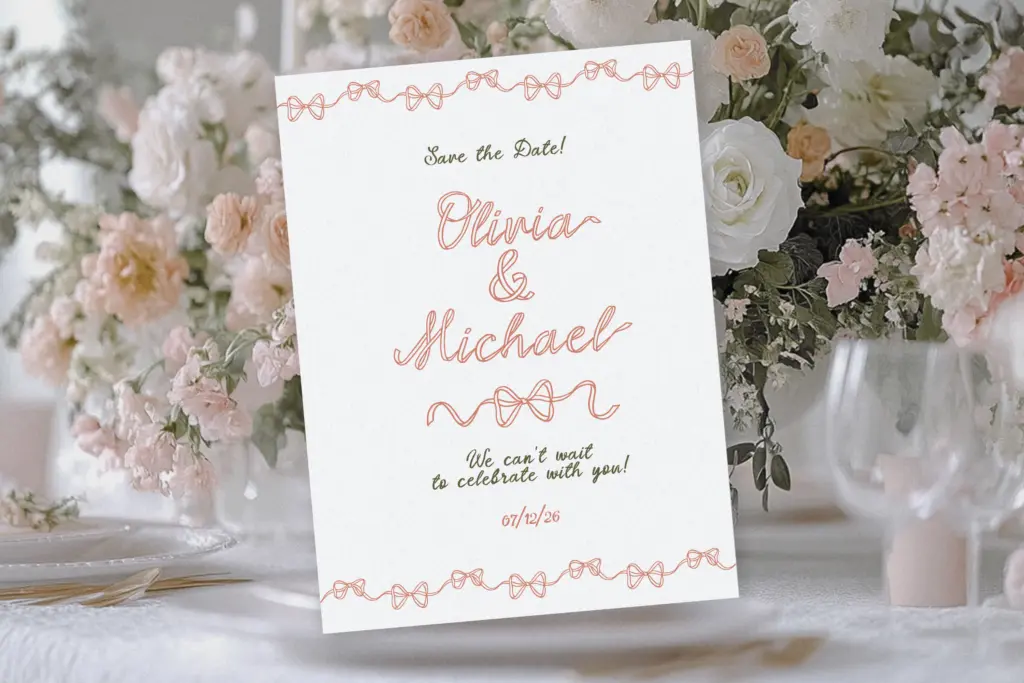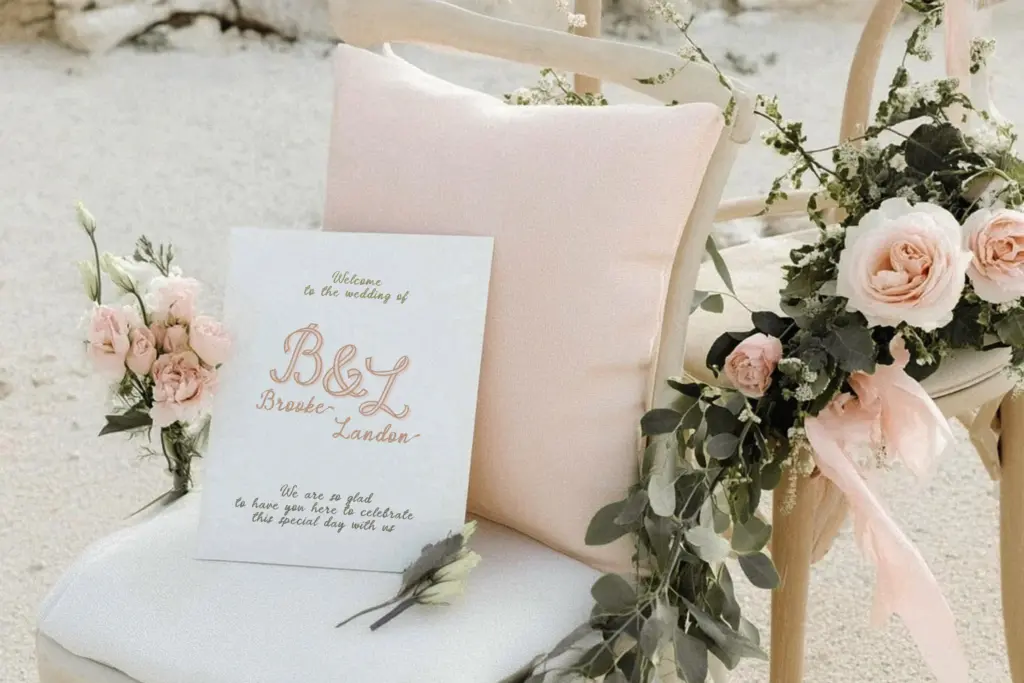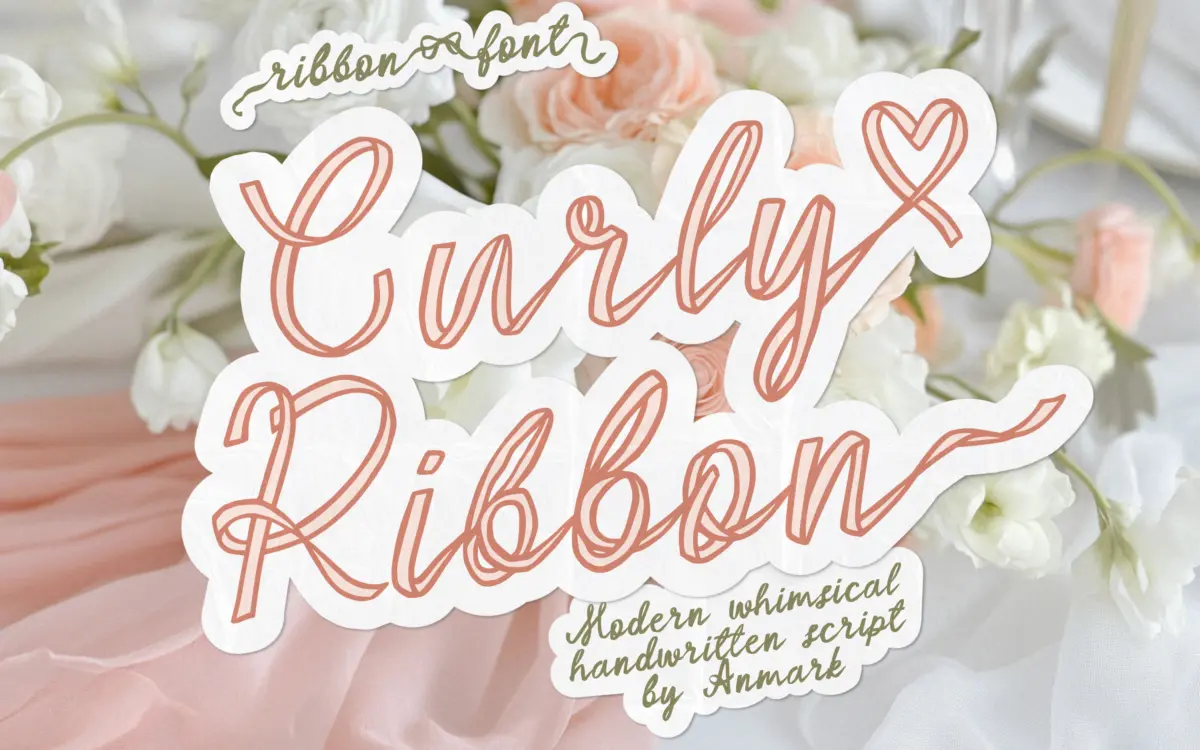
Curly Ribbon builds each letter out of a continuous looping stroke meant to read as a ribbon folding over itself — the joins pinch, cross, and sometimes tie off into little bow or heart shapes at terminals. It’s a novelty conceit executed with some care: the outline weight in the Regular style stays consistent through the twists, so the ribbon illusion holds up rather than collapsing into a generic connected script. The Bold companion thickens the strokes and simplifies some of the more elaborate crossings, trading a bit of the ribbon illusion for legibility and presence at larger sizes.
This is decoration first, writing system second. The letterforms bend to the ribbon logic rather than the other way round — verticals lean, counters get squeezed where a loop needs to pass through, and x-height wobbles slightly letter to letter because the stroke is doing double duty as both shape and structure. That’s the trade you’re making by choosing it: charm over discipline.
The set covers upper and lowercase, numerals, and punctuation, with lowercase alternates giving you a second (sometimes third) way to draw the trickier letters — useful when a specific word keeps colliding awkwardly with itself. Ligatures are the other real feature here: certain letter pairs trigger swash connections, bows, or heart shapes rather than plain joins, which is where the
- The ribbon-fold illusion holds up consistently across the alphabet rather than breaking down on awkward letters
- Ligature-triggered bows and hearts add ornament without needing manual swash insertion
- Bold companion gives a heavier, more legible option for smaller-scale or busier layouts
- Legibility drops fast in anything longer than a word or short phrase, especially in the Regular outline style
- The style is narrow — it doesn't adapt well to body copy, tables, or long-form editorial use
Curly Ribbon is a decorative novelty script that commits fully to its ribbon conceit, with genuine care in how the loops and bows are drawn. It's built for short, ornamental use — a name, a word, a monogram — not for setting sentences.